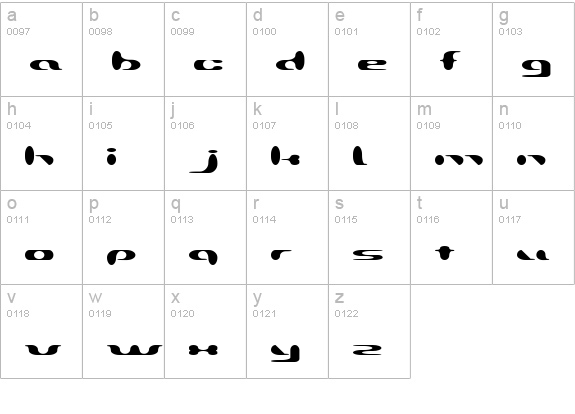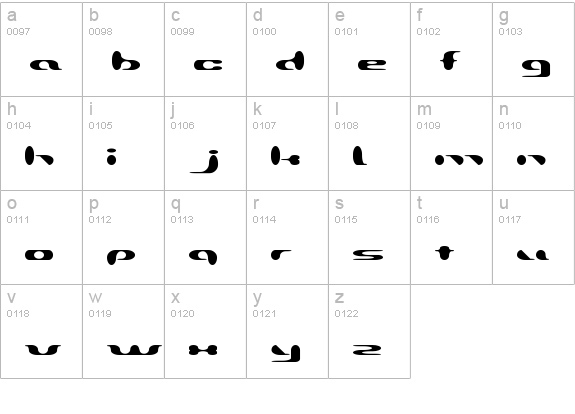
Addround Font Details
Introducing Addround font - a modern and stylish typeface that will add a touch of sophistication to your design projects. This versatile font features rounded edges and smooth curves, giving it a friendly and approachable look. Perfect for a wide range of applications, from branding and logos to social media graphics and packaging design. What's even better is that Addround font is completely free to download at FontsMarket.com. Yes, you read that right - you can easily access this high-quality font without spending a dime. Don't miss out on the opportunity to elevate your designs with Addround font's unique charm and versatility. Download it now and unleash your creativity!